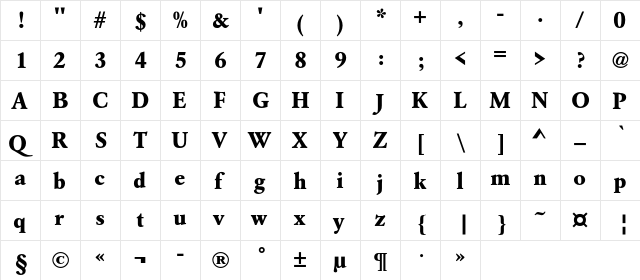
AZGaramondExtraBoldC Regular
Design Context for AZGaramondExtraBoldC Typeface
AZGaramondExtraBoldC takes a measured approach to typography — its balanced proportions and neutral character make it a reliable workhorse for both digital and print work. Its bold stroke weight gives it real presence on the page.